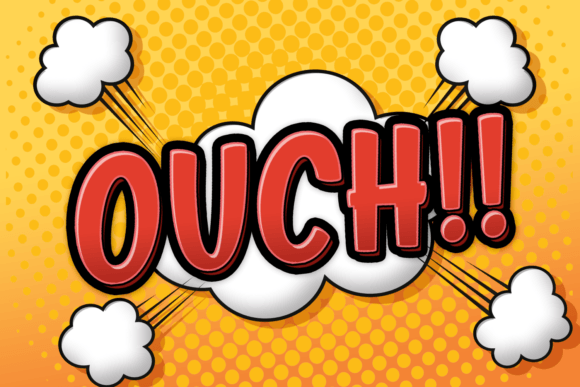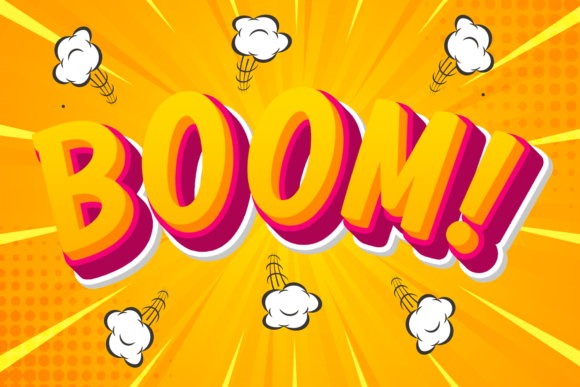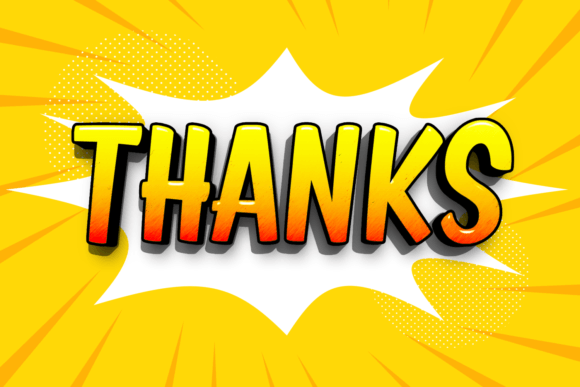
Introduction to Simple Anime Font
Have you ever been working on a creative project and suddenly, the perfect font pops into your mind, elevating your design from good to amazing? That’s exactly what happened to many designers when they discovered the Simple Anime Font. This bold and stylish display font has been a game-changer for designers looking for a high-quality design resource.
With its simplicity and thick characters, the Simple Anime Font is perfect for a wide range of projects, from graphic design to digital art. One of the best things about this font is that it can be used with a transparent background, making it a versatile design tool. Whether you’re working on a free download project or a commercial design, the Simple Anime Font is a valuable asset that can bring your creative ideas to life.
Key Features of Simple Anime Font
- High-quality design for creative projects, featuring a unique anime-inspired style.
- Comes with a transparent background, allowing for easy customization and integration with various design elements.
- Features a clean and modern design, with clear and readable characters, suitable for use in a variety of creative projects.
- Supports a wide range of languages, making it a versatile design resource for international projects.
Honest Review: Simple Anime Font
I recently stumbled upon the Simple Anime Font, and I have to say, it’s a great addition to any designer’s arsenal. As a design resource, it offers a high quality and versatile font that can be used for a wide range of creative projects.
One of the things that works well about this font is its simplicity, which makes it easy to read and understand. The transparent background is also a nice touch, allowing you to easily place it over any image or design element.
- ✨ Easy to use and customize
- ✨ Great for creating a Japanese or anime-inspired aesthetic
However, there are a few limitations to consider. The font may not be suitable for all design projects, and some users may find the simplicity a bit too plain.
- ⚠️ May not be suitable for all design projects
- ⚠️ Some users may find the font too plain
Overall, I think the Simple Anime Font is a great resource for designers who are looking for a high-quality, easy-to-use font for their creative projects. While it may have a few limitations, it’s definitely worth checking out – especially since it’s available for free download.
The Simple Anime Font is ideal for a variety of creative projects, including graphic novels, manga, anime-inspired artwork, and video game design. You can also use it for creating logos, titles, and headings for your website, blog, or social media platform.